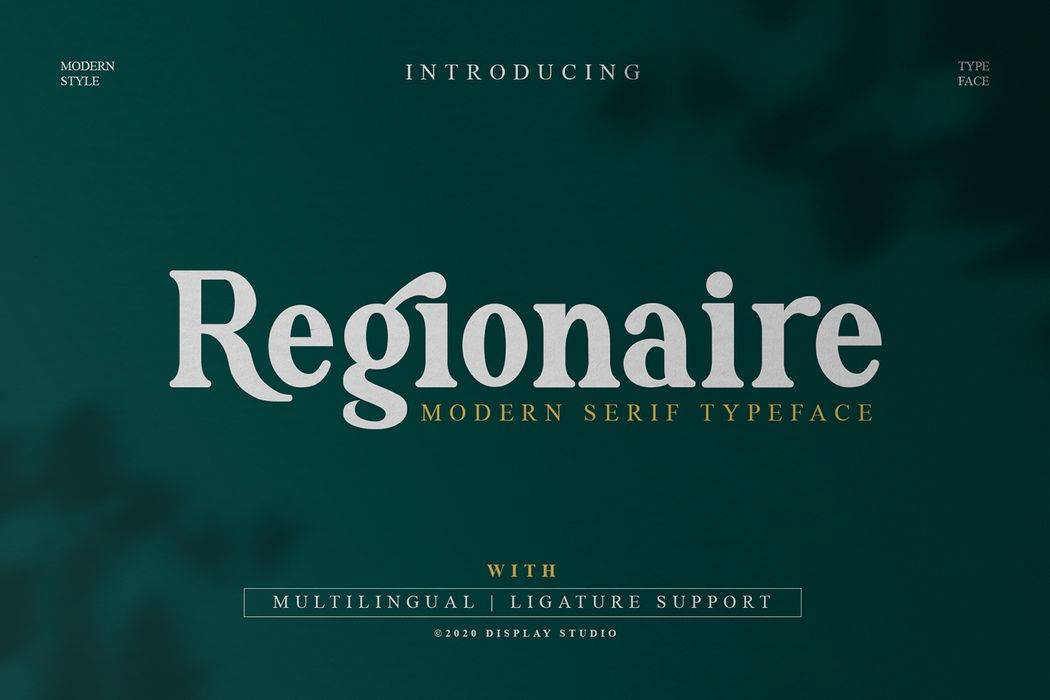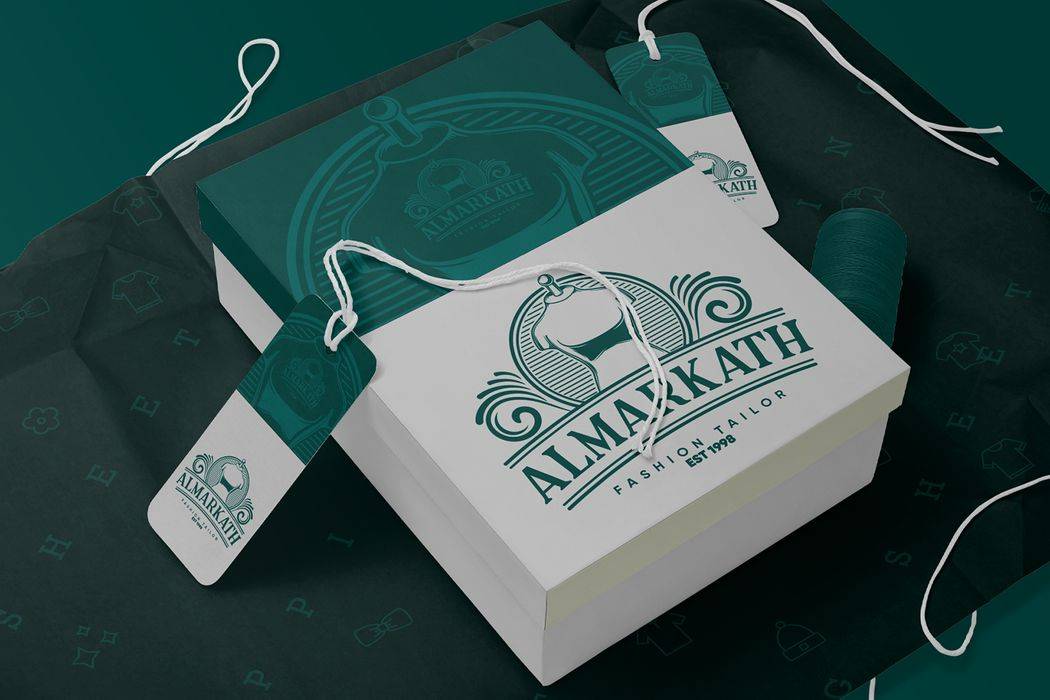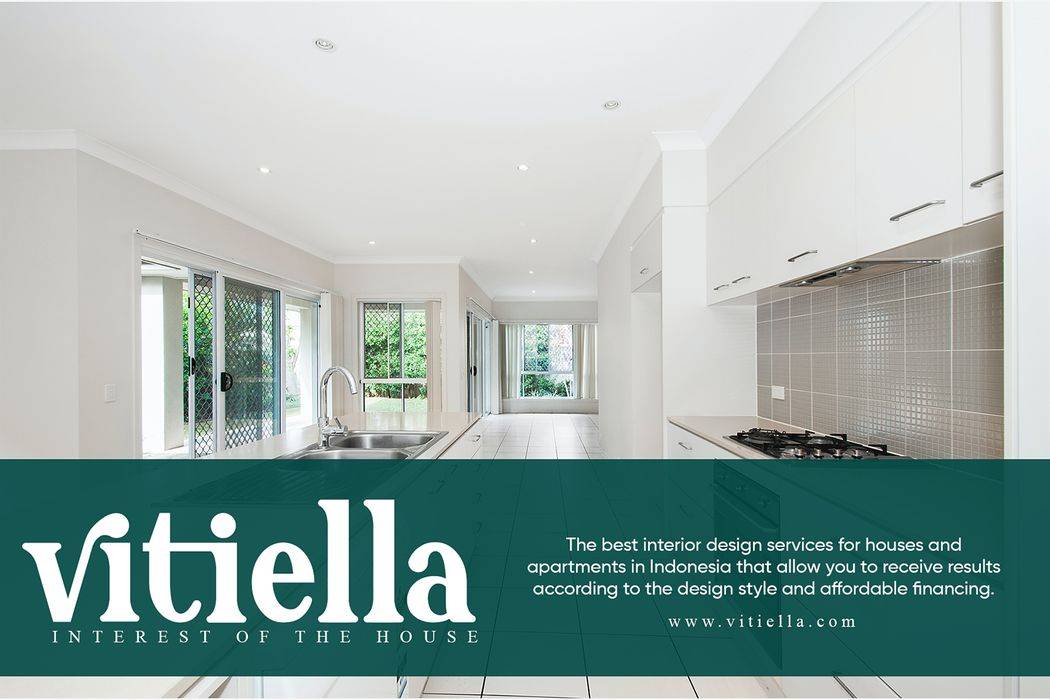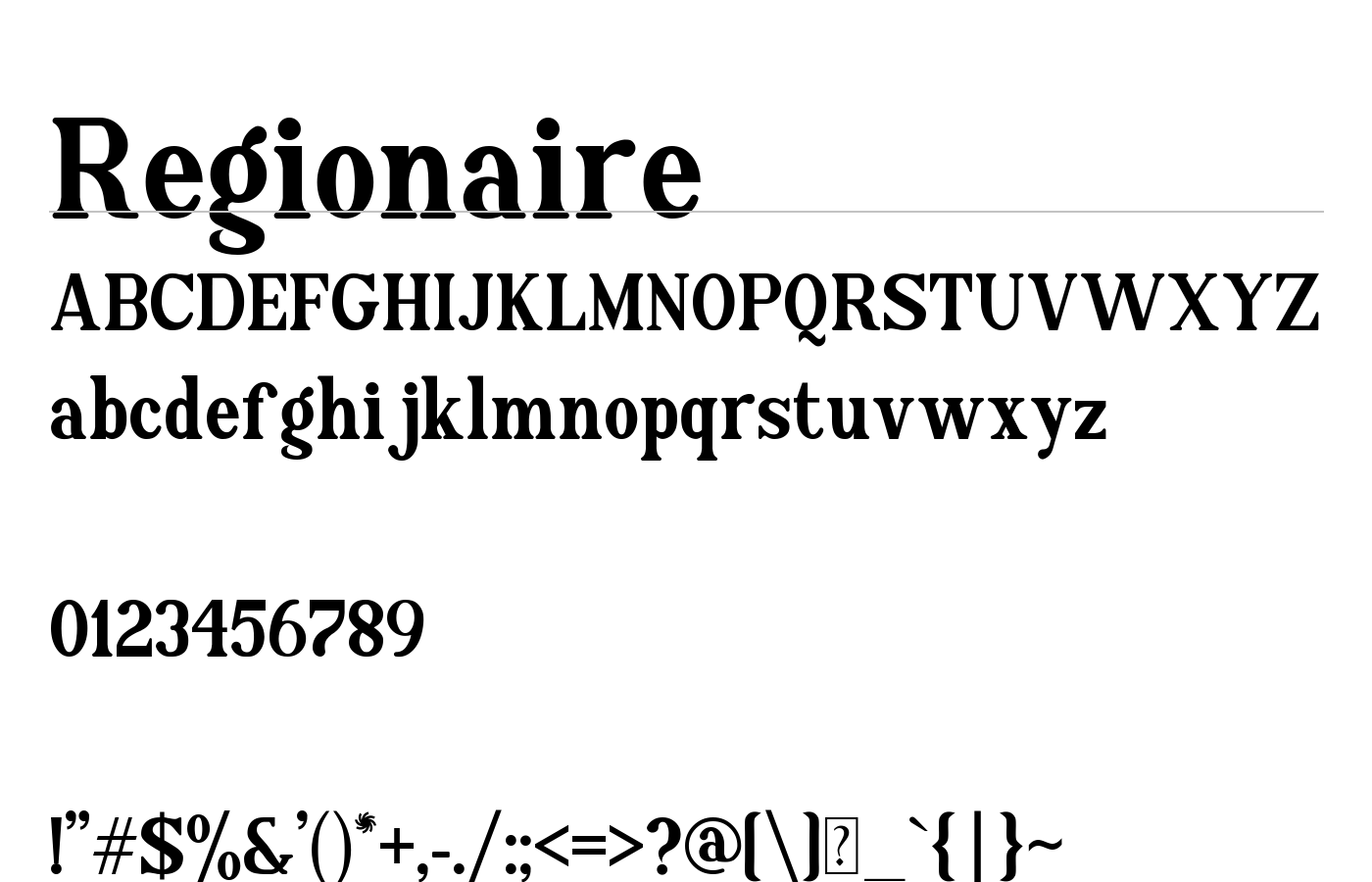
Regionaire is a bold, serif typeface with a strong presence and classic elegance. Featuring high contrast between thick and thin strokes and distinctive bracketed serifs, it conveys a refined, traditional feel perfect for sophisticated branding, editorial headlines, and luxury packaging. Its clear letterforms and balanced proportions make it ideal for projects seeking a timeless yet impactful look.
Regionaire Font
About Regionaire Font